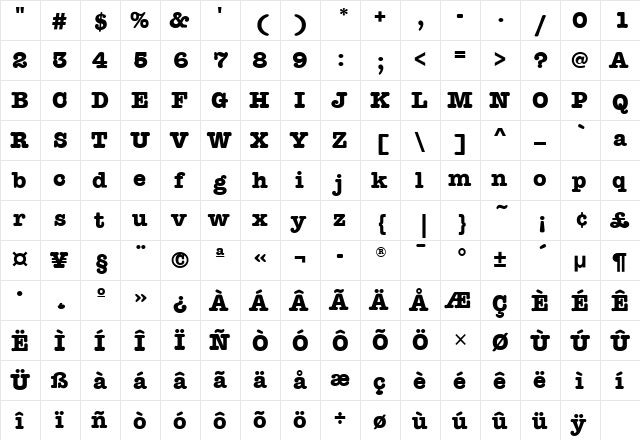
AmTypewriterITC Bold Font Preview
AmTypewriterITC Bold
Design Context for AmTypewriterITC Typeface
AmTypewriterITC brings the precise, column-aligned rhythm of monospaced typography to designs that value technical clarity and systematic order. Its bold stroke weight gives it real presence on the page.